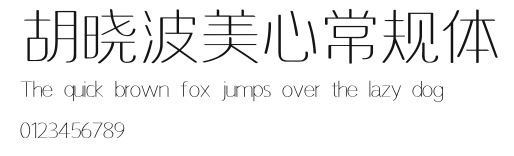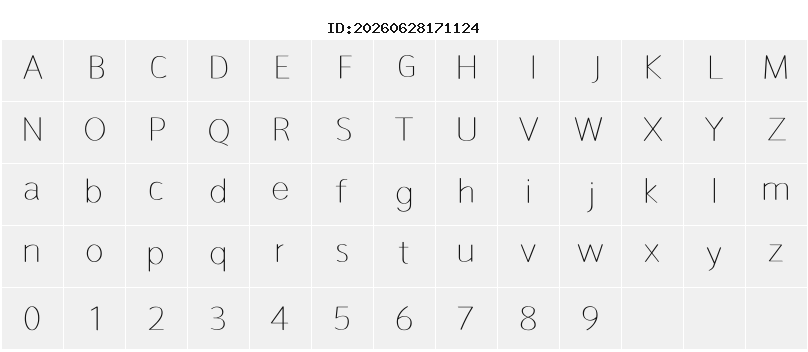
• Font Name: 胡晓波美心常规体
• Font ID: 胡晓波美心常规体
• Full Font Name: 胡晓波美心常规体
• Version: Version 3.12
• PostScript Name: huxiaobo-meixin
• Character Count: 28157
About 胡晓波美心常规体.ttf
胡晓波美心常规体.ttf is a modern, elegant sans-serif font designed for ultimate readability and visual harmony. Perfect for branding, headlines, web design, and print materials.